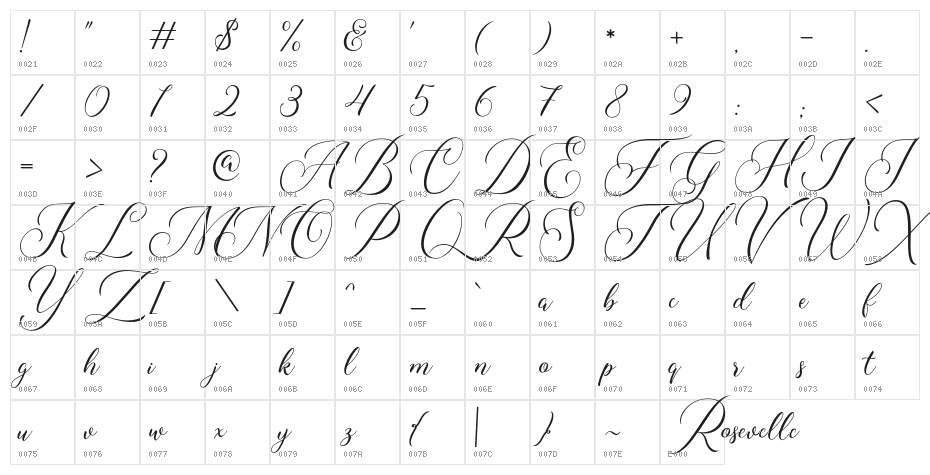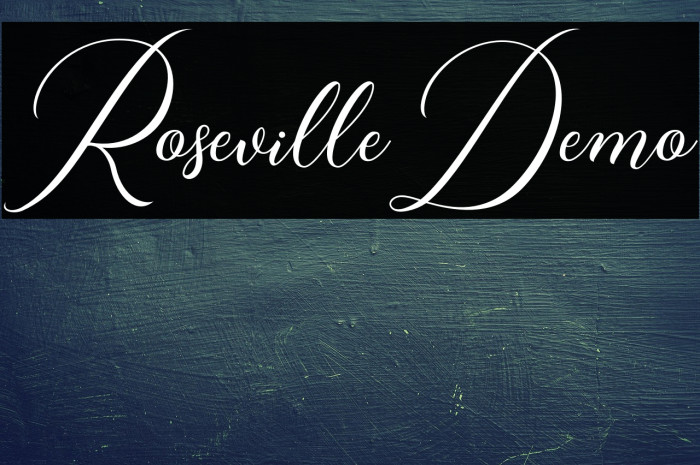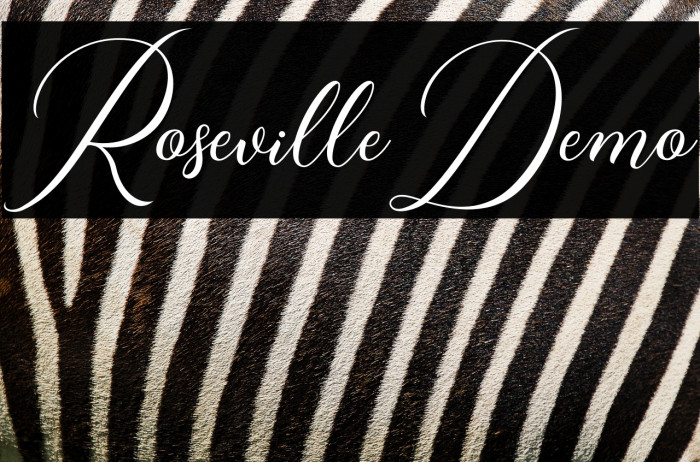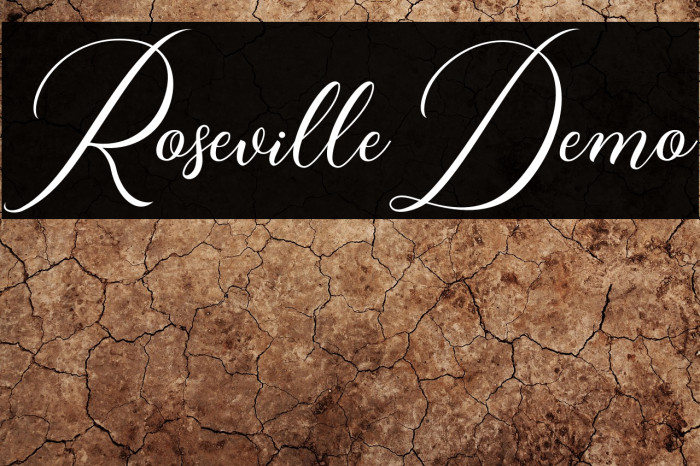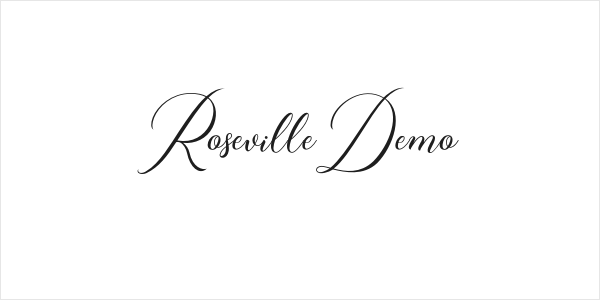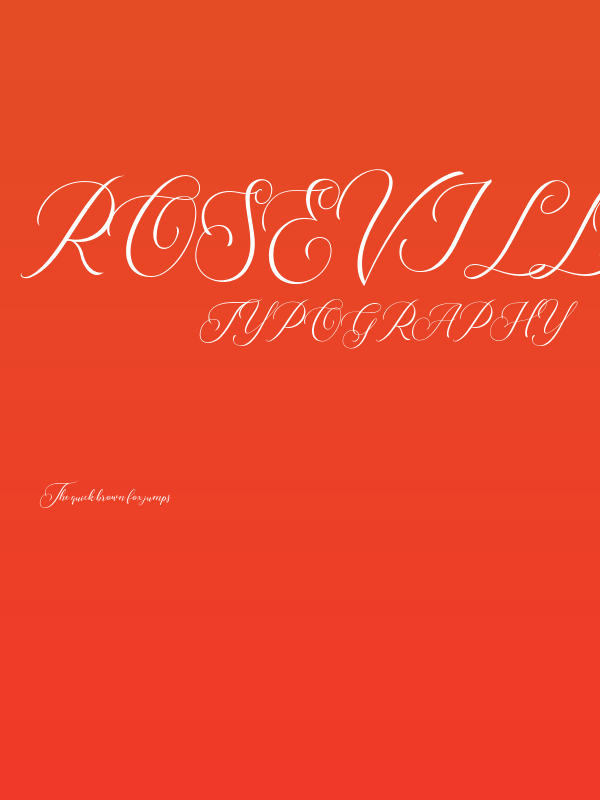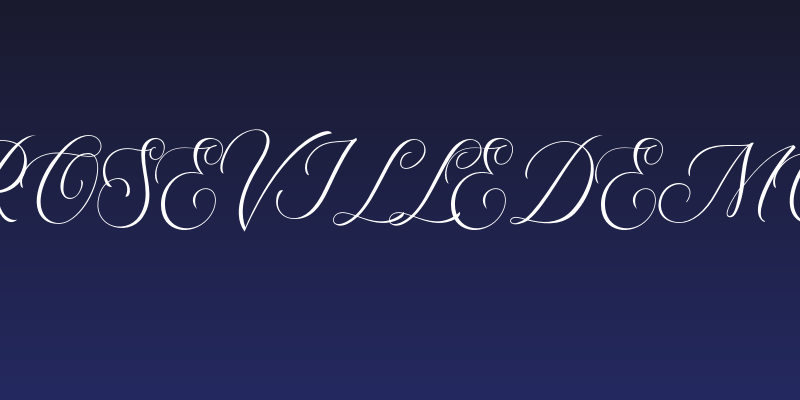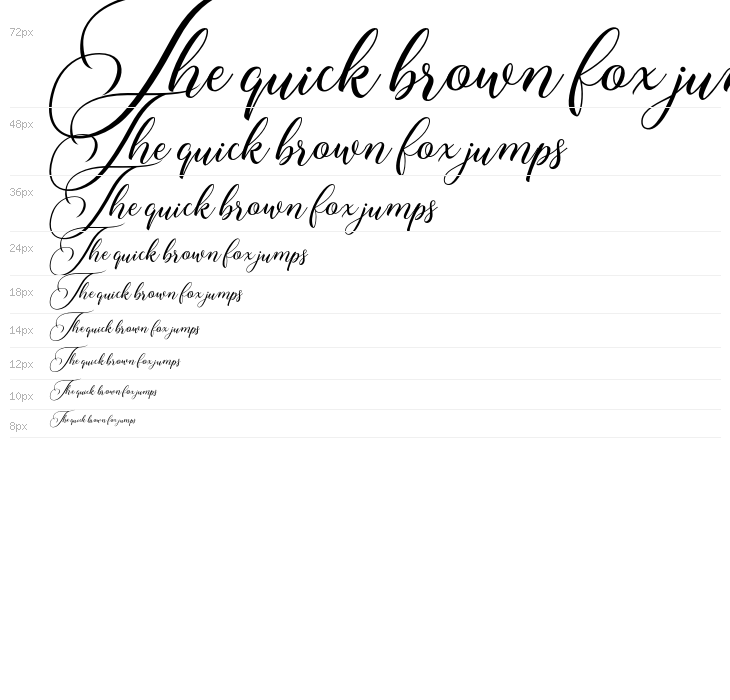
RosevilleDemo Font
This elegant script font features flowing, cursive letterforms with a sophisticated and graceful appearance. The uppercase letters are characterized by their sweeping loops and flourishes, while the lowercase letters maintain a smooth and connected style. The numerals are designed with a similar flair, adding a touch of elegance to any numerical presentation. Special characters are crafted with the same attention to detail, ensuring a cohesive look across all text elements. The font's overall design exudes a sense of luxury and refinement, making it ideal for projects that require a touch of class and elegance.
| Proposed Projects | Ideal for wedding invitations, luxury branding, elegant packaging, and formal event programs. |